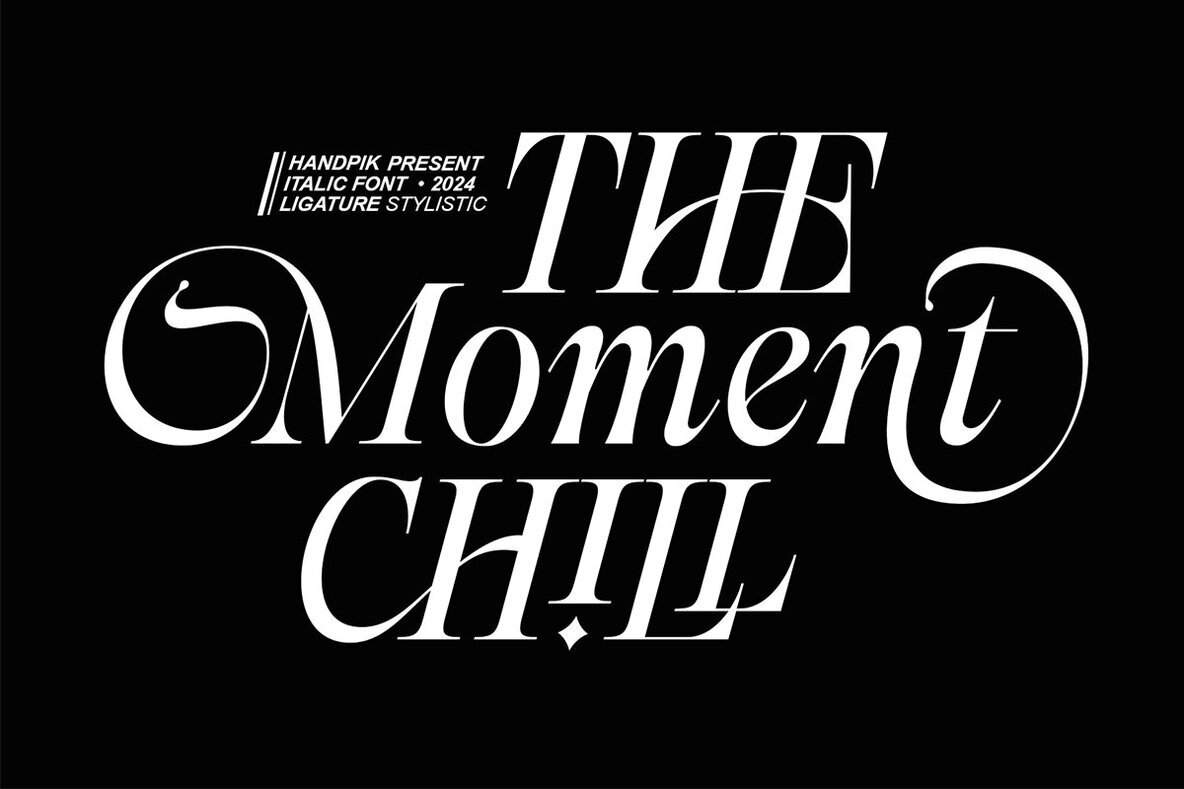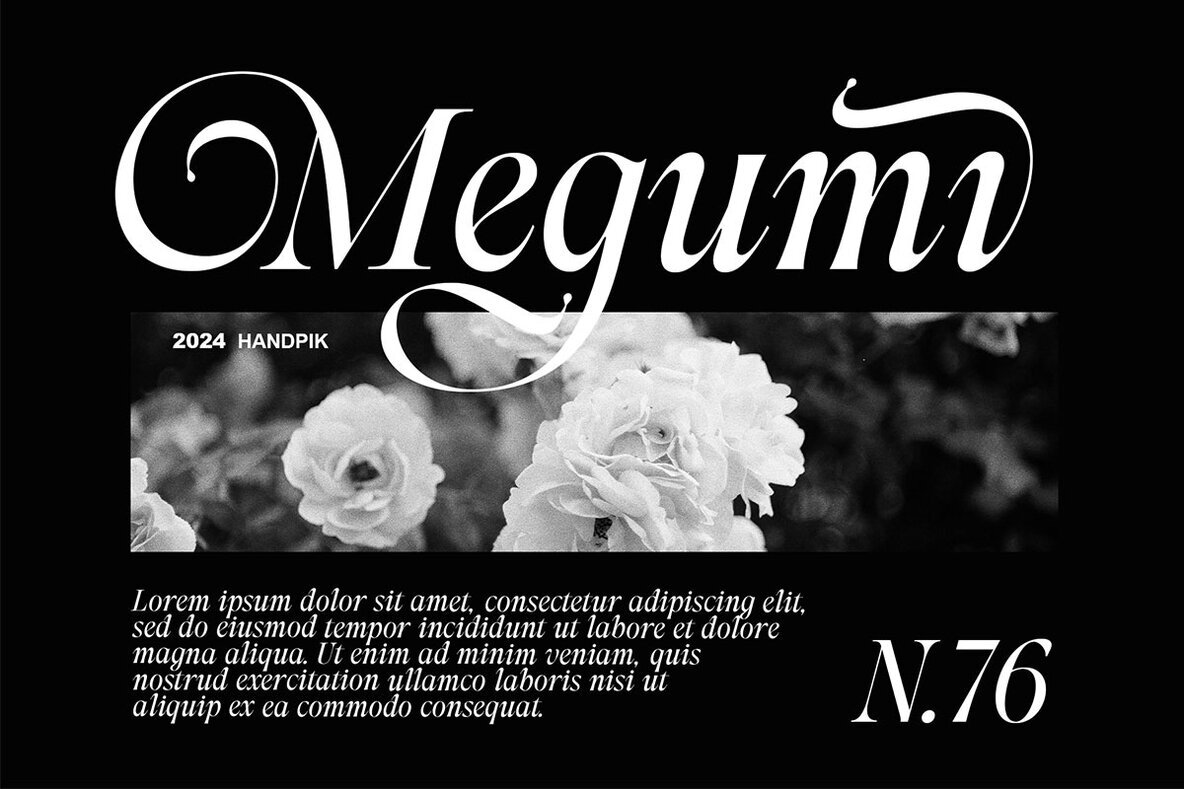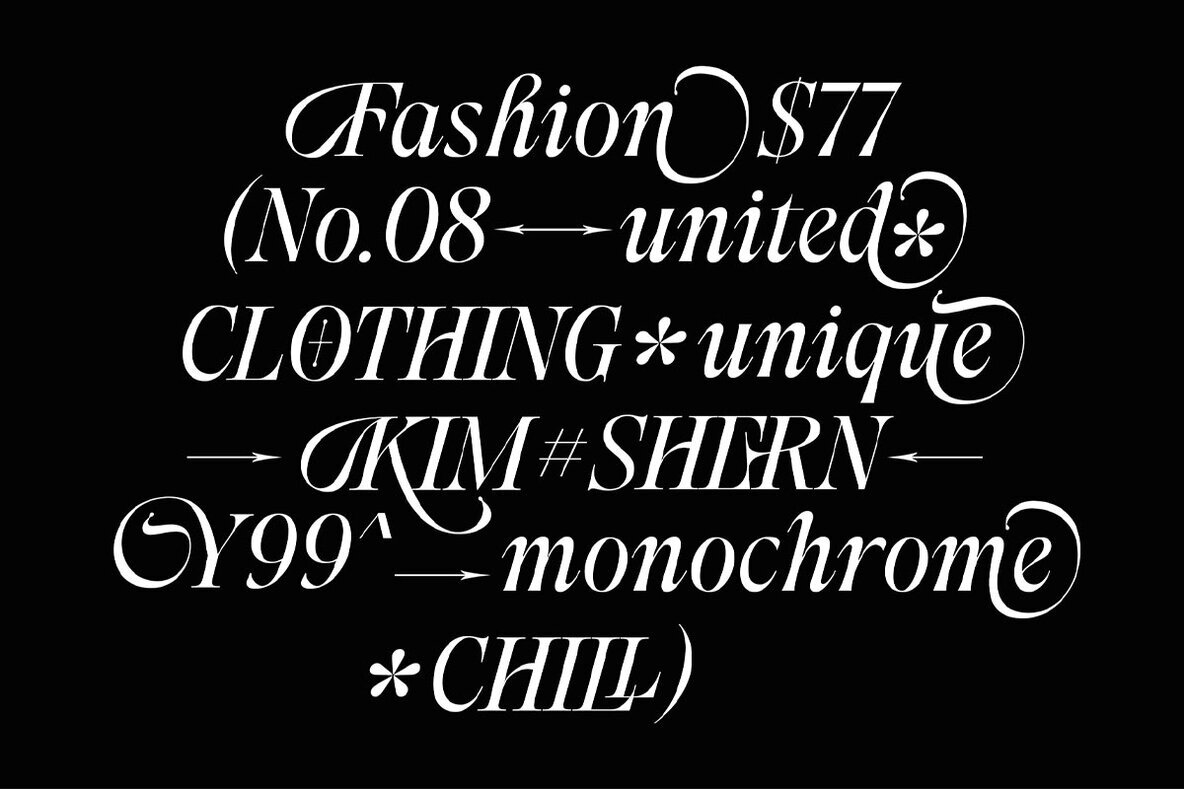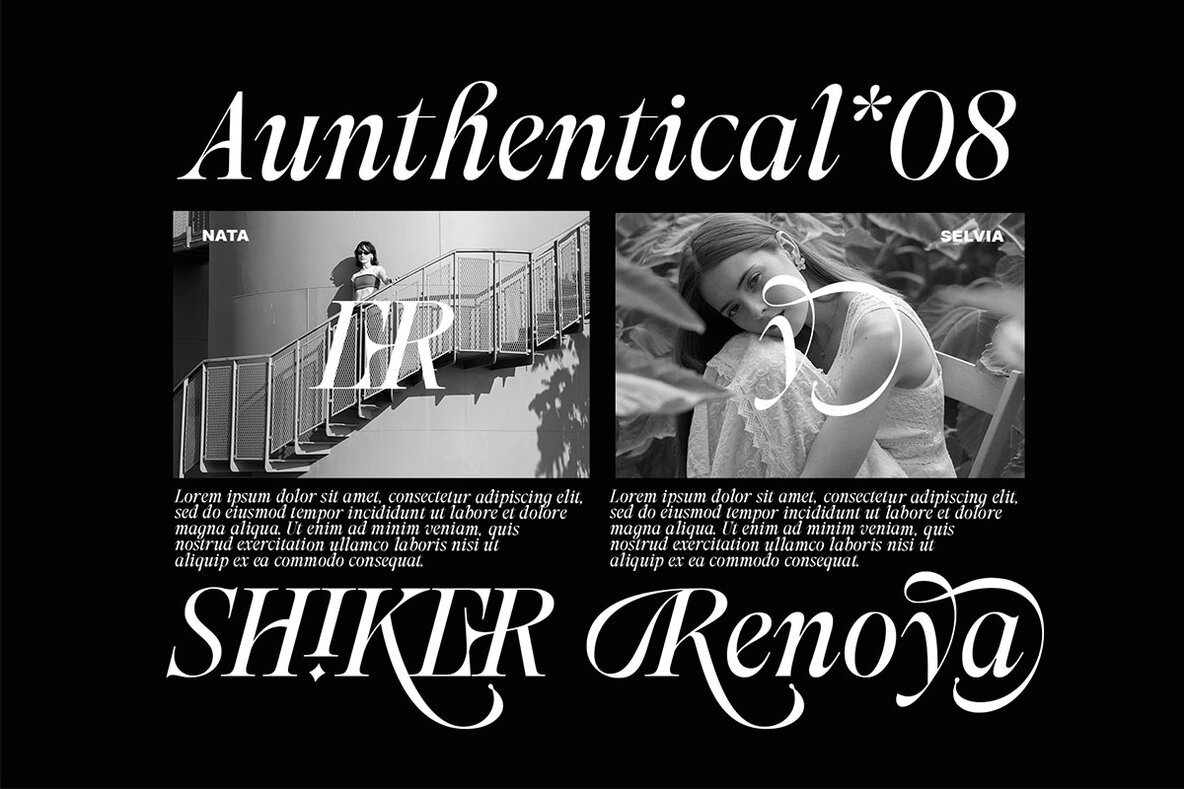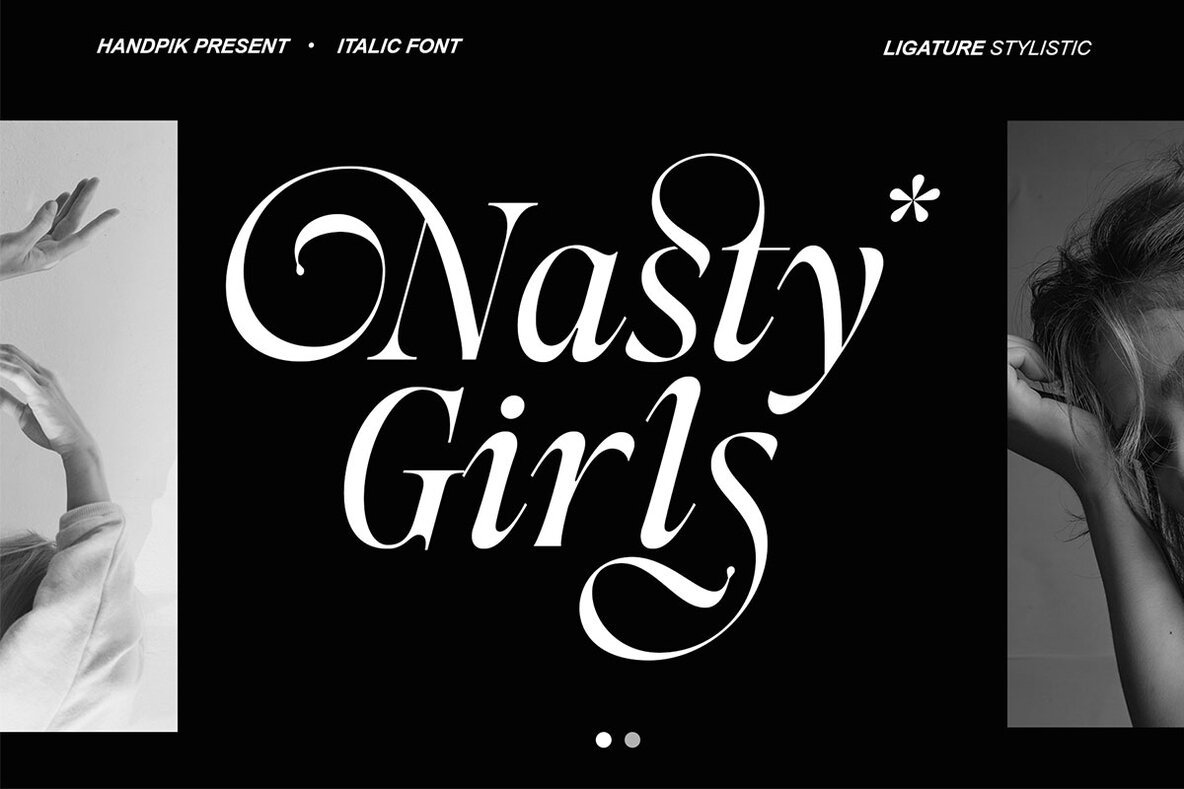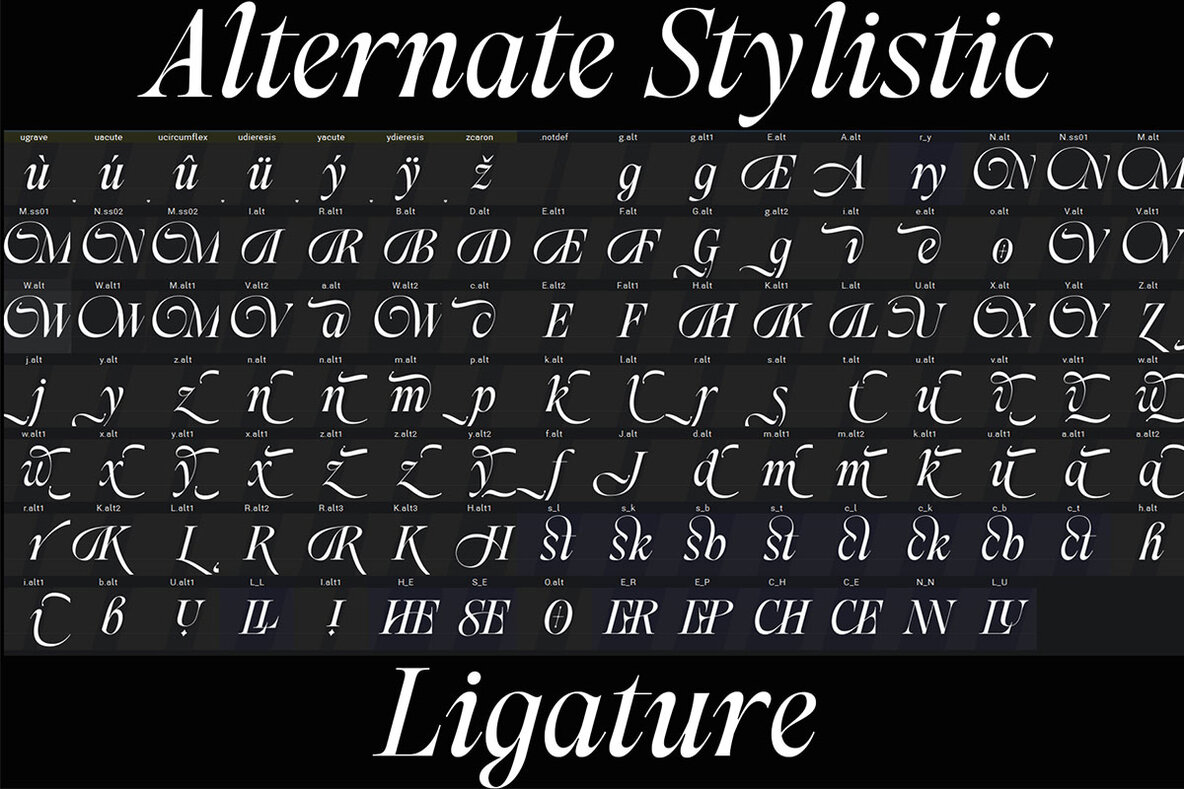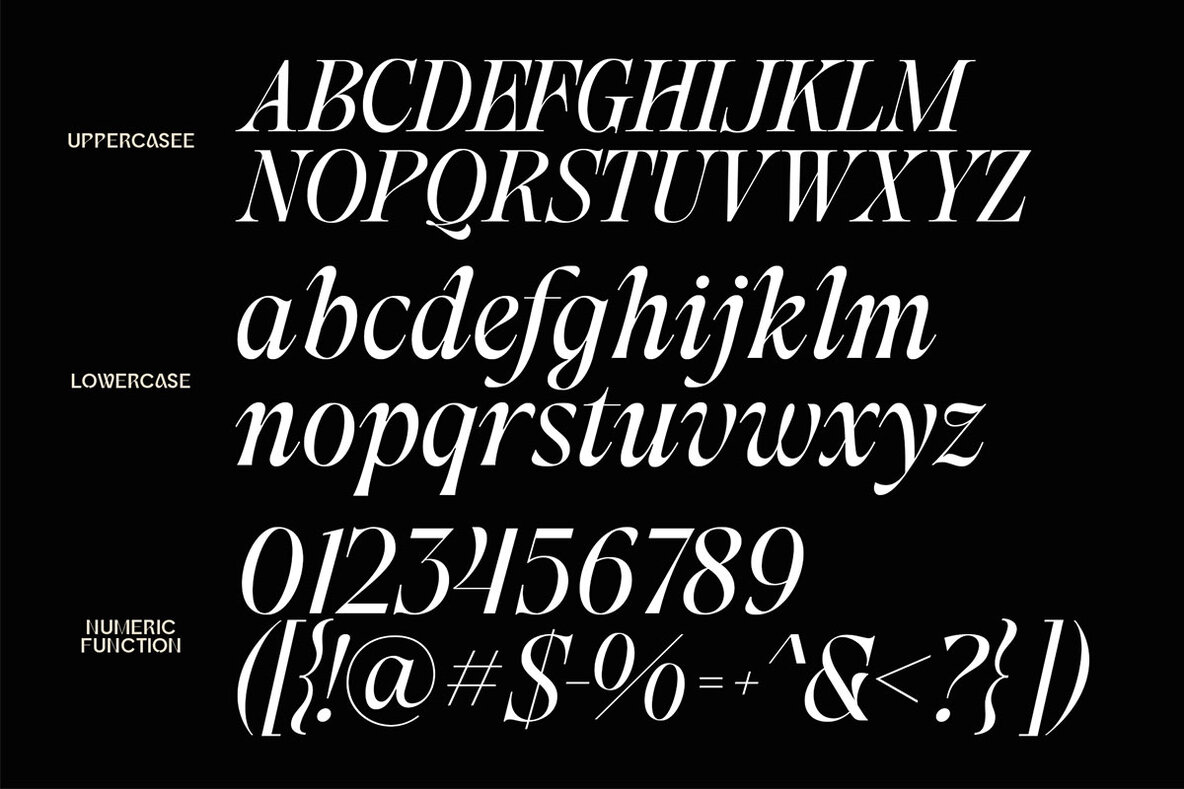
The Moment Chill Font
The Moment Chill
Discover the versatile charm of The Moment Chill typeface, designed for creativity and impact. Perfectly crafted for a wide array of projects, this font lends a sophisticated touch to books, magazines, logos, branding, photography, and quotes. Enhance your blog headers, posters, and advertisements with its stylish appeal.The Moment Chill Typeface